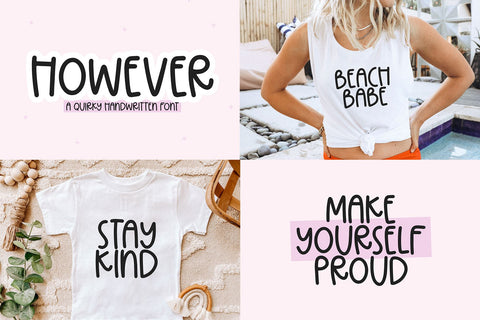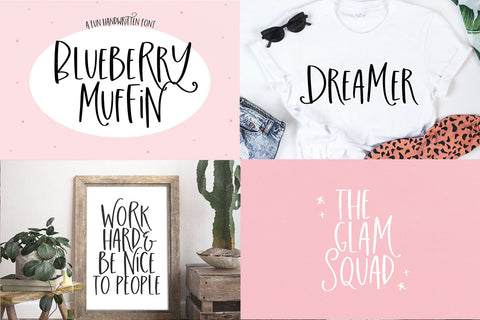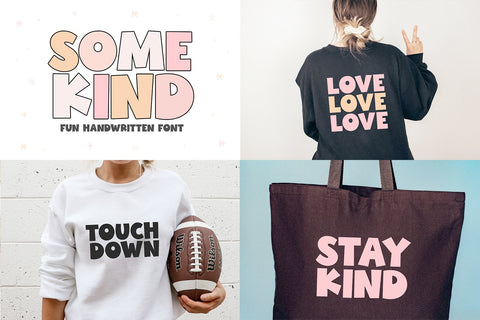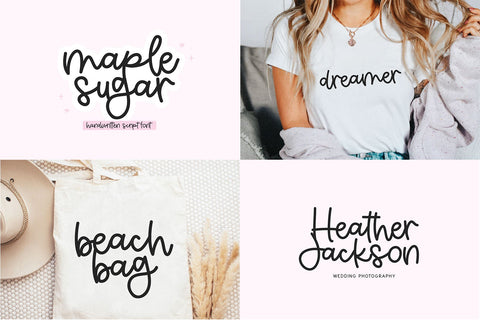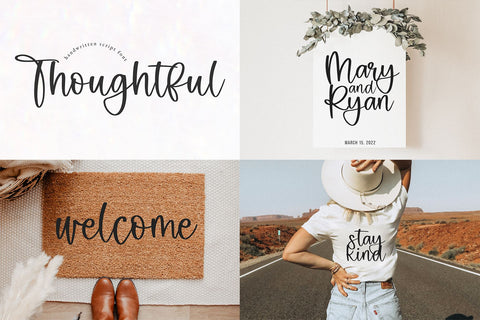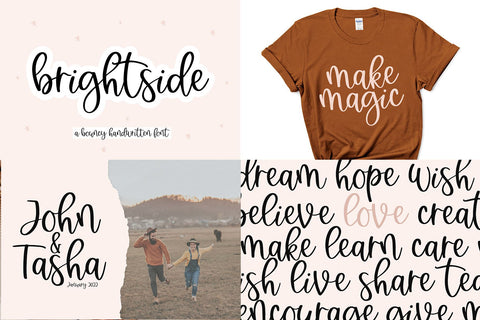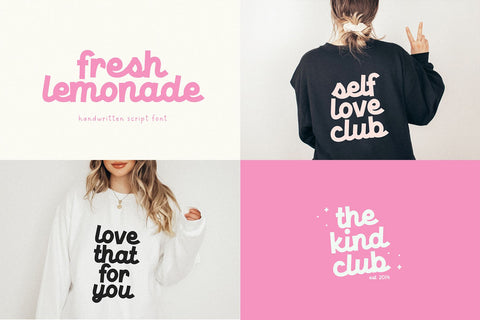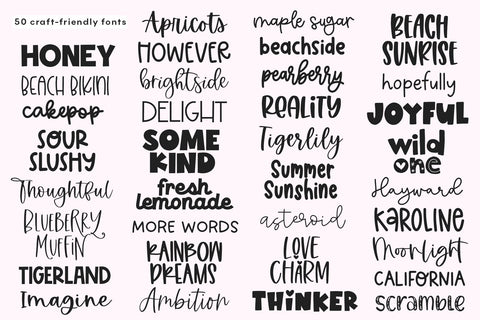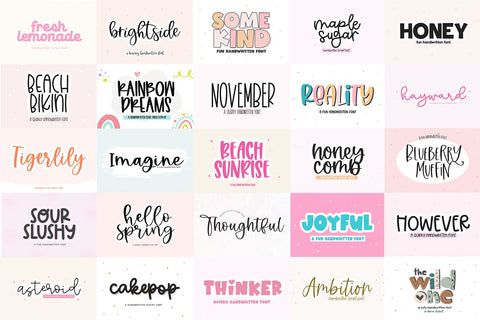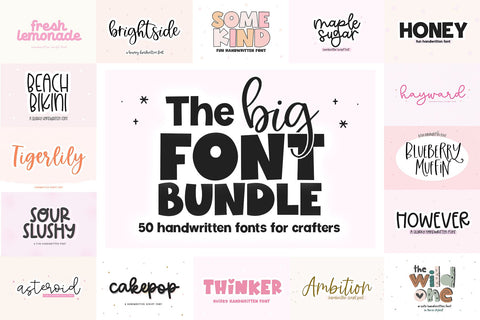
Big Handwritten Font Bundle - 50 Fonts for Crafters!
This bundle includes a handpicked selection of fonts - a little bit of everything + some new fonts!
* However
* Hopefully
* More Words
* Beachside
* Thoughtful
* Sour Slushy
* Honey
* Scramble
* Ambition
* Apricots
* Asteroid
* Beach Bikini
* Beachside
* Beach Sunrise
* Brightside
* Blueberry Muffin
* Cakepop
* California
* Dear May
* Dear May Doodles
* Delight
* Firefly
* Hayward
* Hello Spring
* Hey Sugar
* Honey
* Honeycomb
* Ice Cream
* Imagine
* Joyful
* Karoline
* Love Charm
* Maple Sugar
* Meanwhile
* Moonlight
* November
* Peach Market
* Pearberry
* Rainbow Dreams
* Rainbow Dreams Doodles
* Reality
* Somekind
* Shaley
* Summer Sunshine
* Sunlight
* Sweet Dreams
* The Wild One
* Thinker
* Thoughtful
* Tigerland
* Tigerlily
* Wildberry